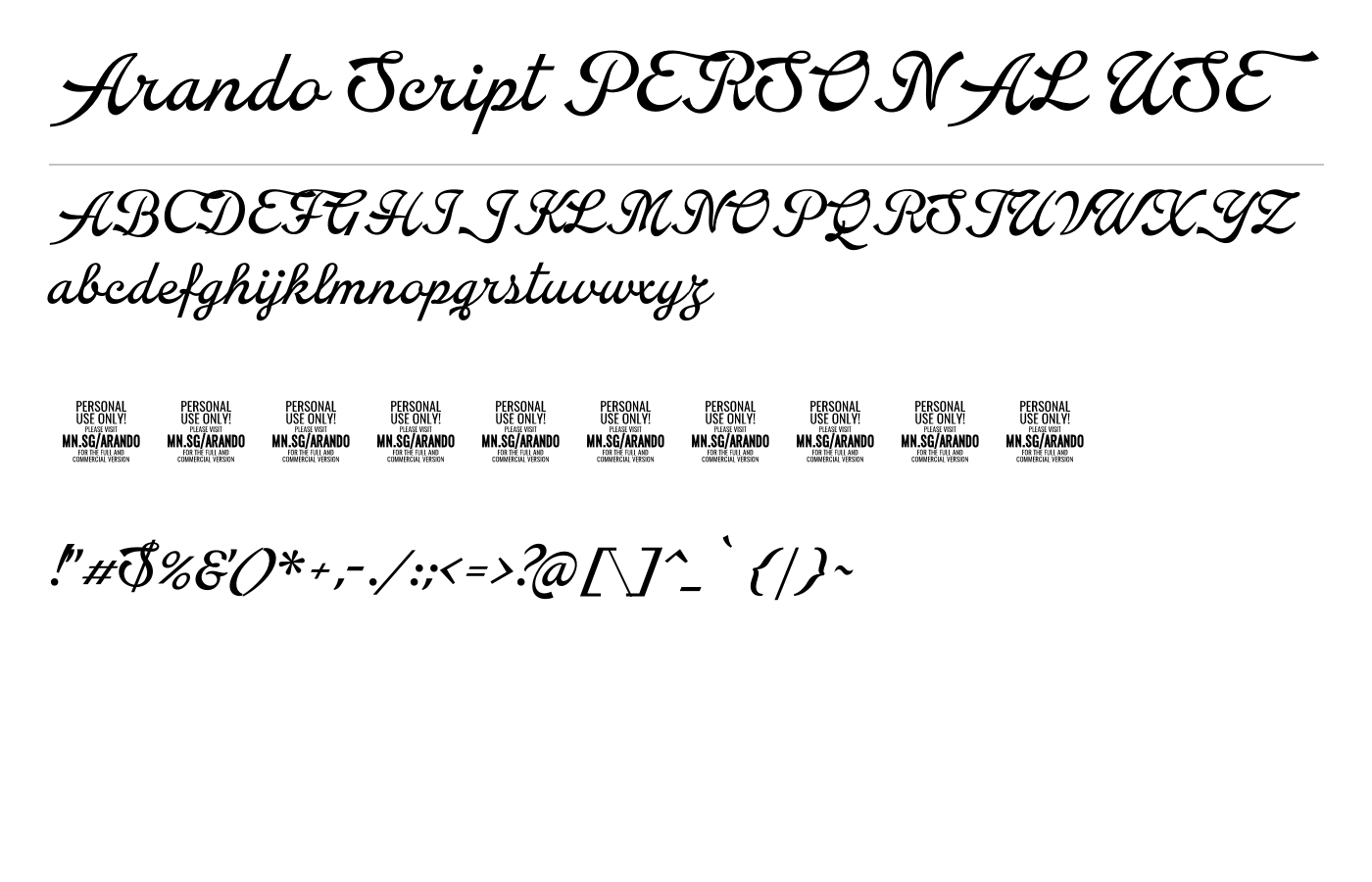
Arando Script is an elegant, flowing script font with a personal, handwritten feel characterized by smooth, connected strokes and moderate contrast. Its neat, slightly condensed letterforms and cursive style make it ideal for adding a touch of sophistication and warmth to invitations, personal branding, and decorative headlines. This font works well in designs that seek a refined yet approachable aesthetic, blending classic charm with modern usability.
Arando Script PERSONAL USE Font
About Arando Script PERSONAL USE Font